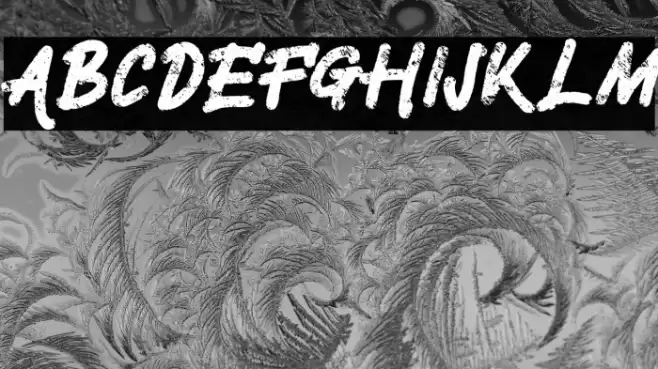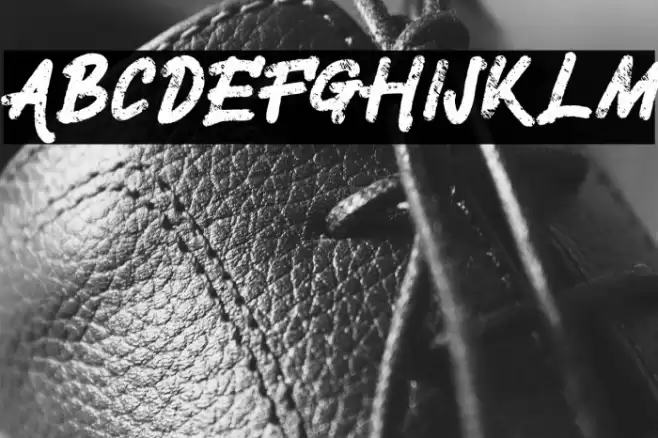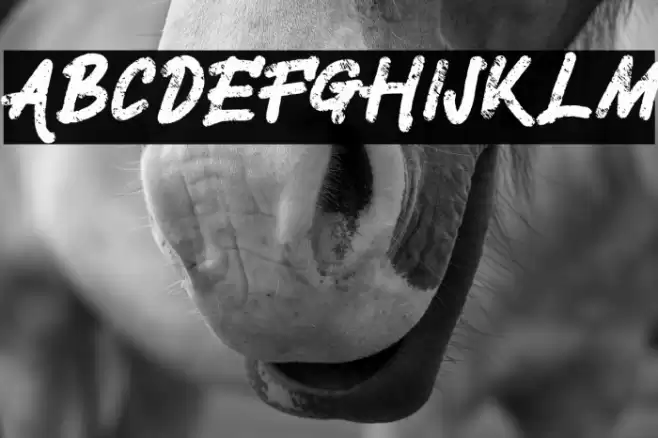
SilentFREE Font
SilentFREE Description
This font features a bold and textured style, reminiscent of a brush or paint stroke effect. The characters have a dynamic and energetic appearance, with irregular edges that give a hand-crafted feel. The uppercase and lowercase letters maintain a consistent style, with a slight slant that adds to the casual and informal look. The numbers and special characters are designed to match the overall aesthetic, making the font versatile for various creative applications. Its unique texture and boldness make it stand out, suitable for projects that require a strong visual impact.
A bold, textured font with a brush stroke effect and a casual, energetic style from Uncategorized fonts.
- Font: SilentFREE
- Proposed Projects: Ideal for posters, branding, social media graphics, and any project needing a bold, artistic touch.